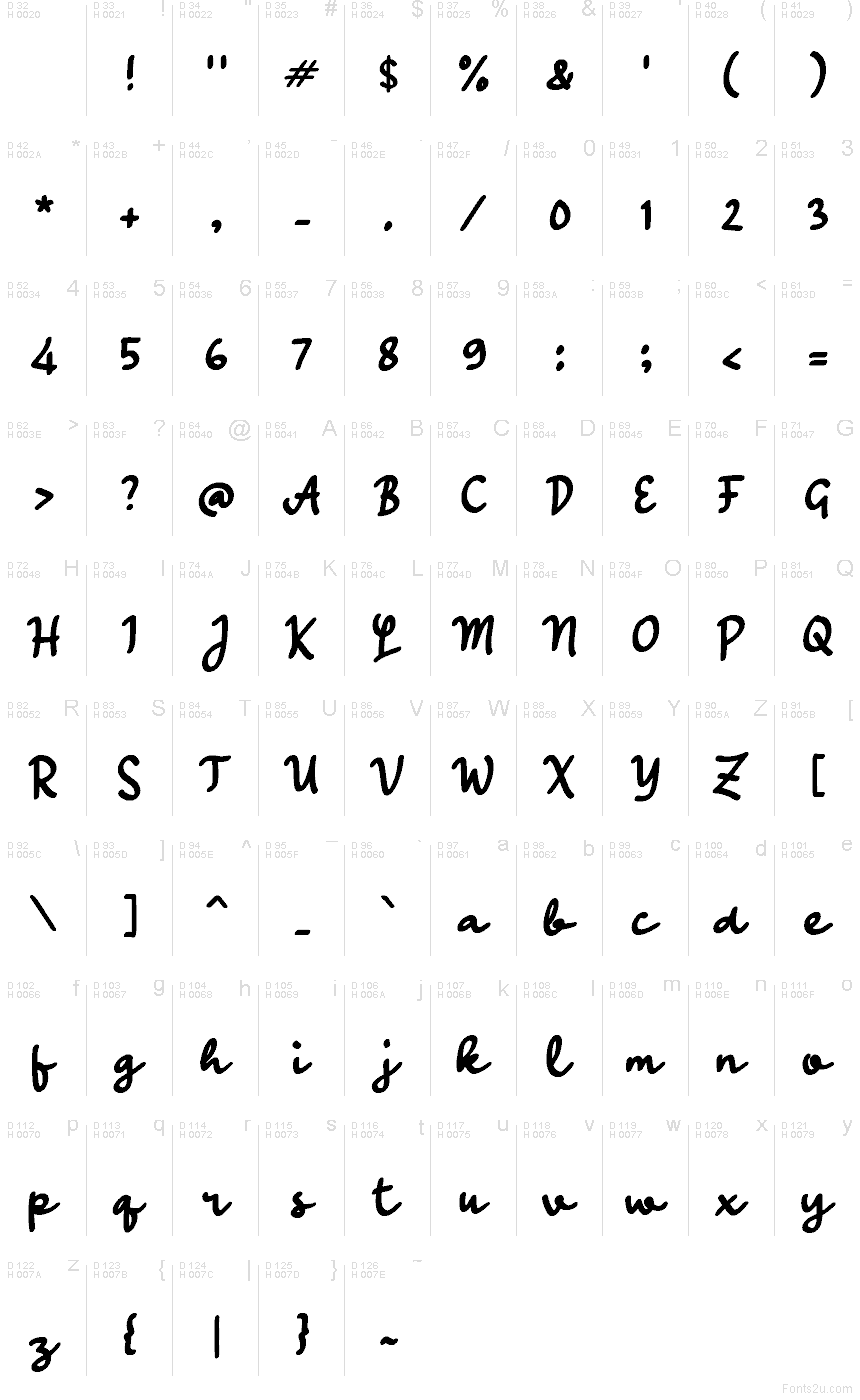
Ninaya
Ninaya font by wep is a free handwritten typeface that feels like a quick, confident note from a friend. The letters flow in an easy script with rounded, brushy strokes that stay legible even at smaller sizes. There’s a friendly bounce in the rhythm, but it never gets messy, giving you that casual, hand-done warmth without sacrificing clarity.
Using Ninaya, this free font shines on social media graphics, quote posts, logos, packaging, greeting cards, and personal branding where you want personality without fuss. It works beautifully as a headline or short phrase, especially when paired with a clean sans-serif for body text. Set it a bit larger with generous line spacing, and Ninaya instantly turns simple words into something that feels handwritten, human, and inviting.